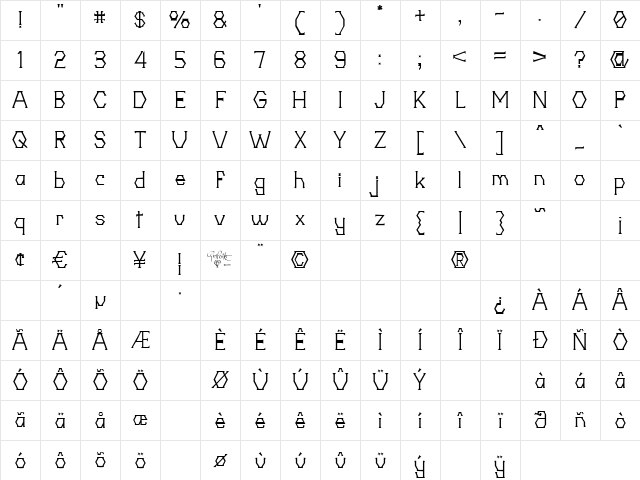
20th Centenary Faux Regular
20th Centenary Faux Family
Design Context for 20th Centenary Faux
20th Centenary Faux is a composed and adaptable typeface that performs quietly and consistently across a wide range of design contexts.